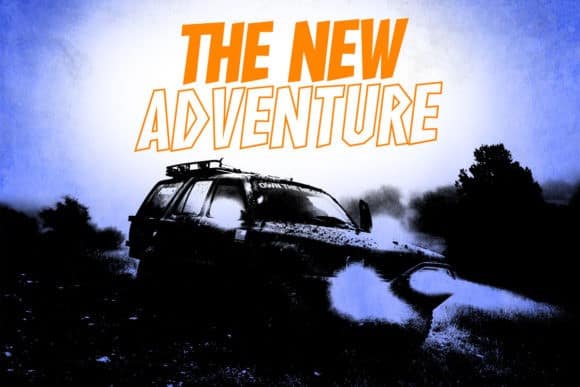
Hardliners Display Font
Hardliners Display Font is a new bold display typeface with retro style, which celebrates abstract shapes in all their eclectic beauty. This font will look truly outstanding in a wide range of contexts.
This font is the best choice for your professional design projects, including : logo, poster design, t-shirt, headline, flyer, cd cover album, quotes, business card, branding, magazines, social media, advertisements, product designs, or something that need playful or cartoon looks.